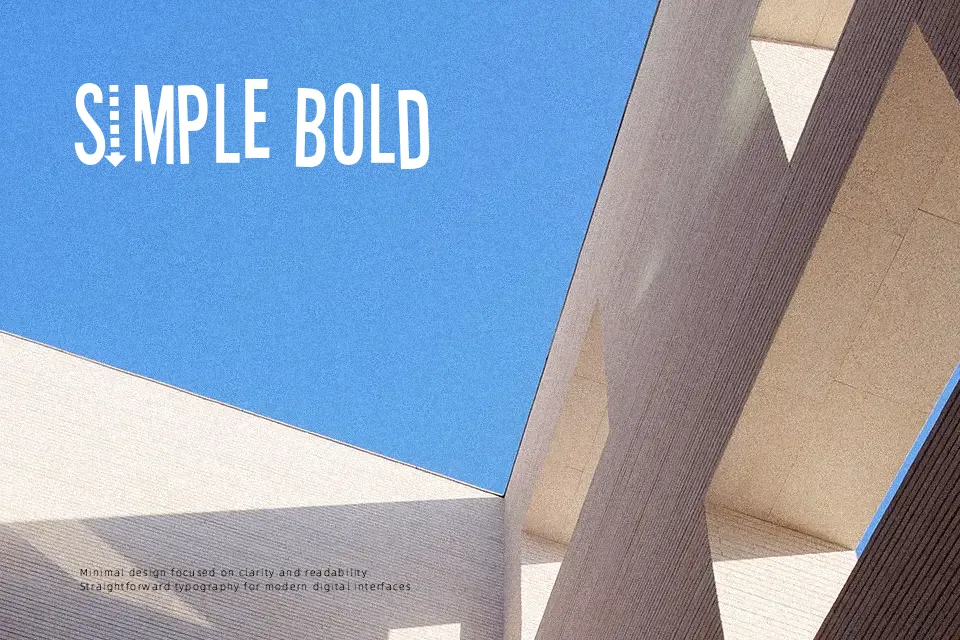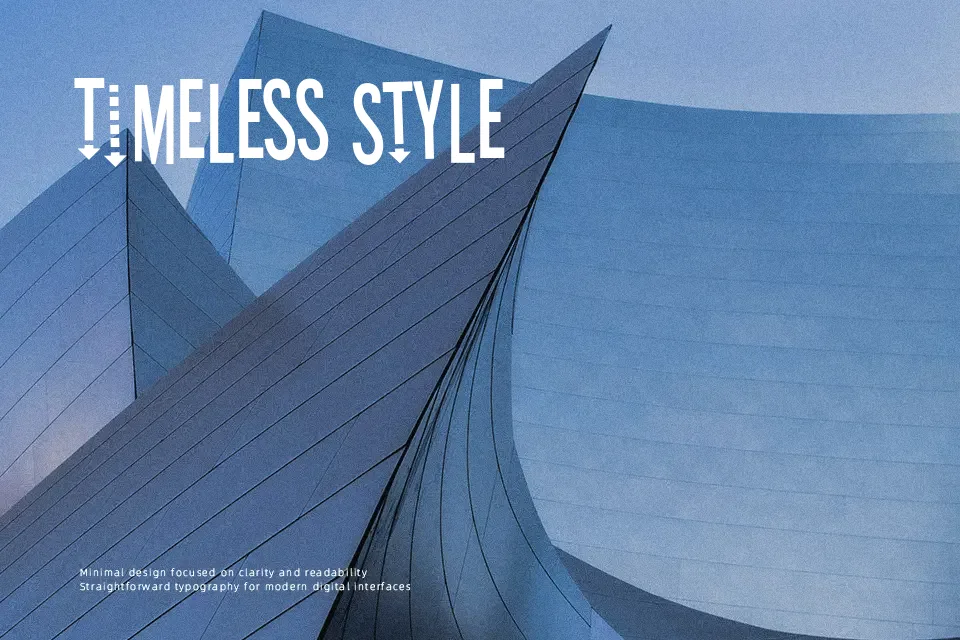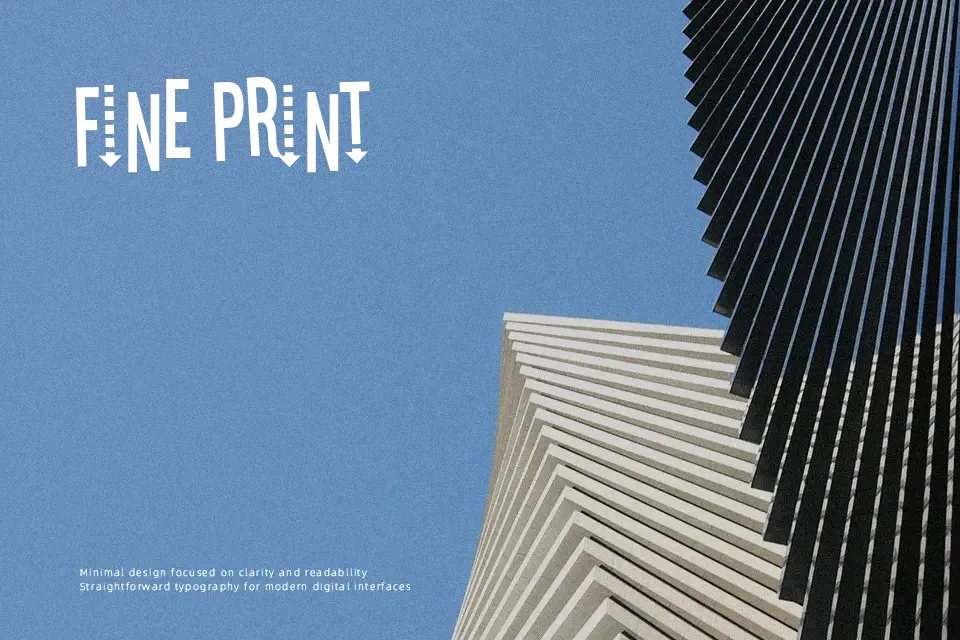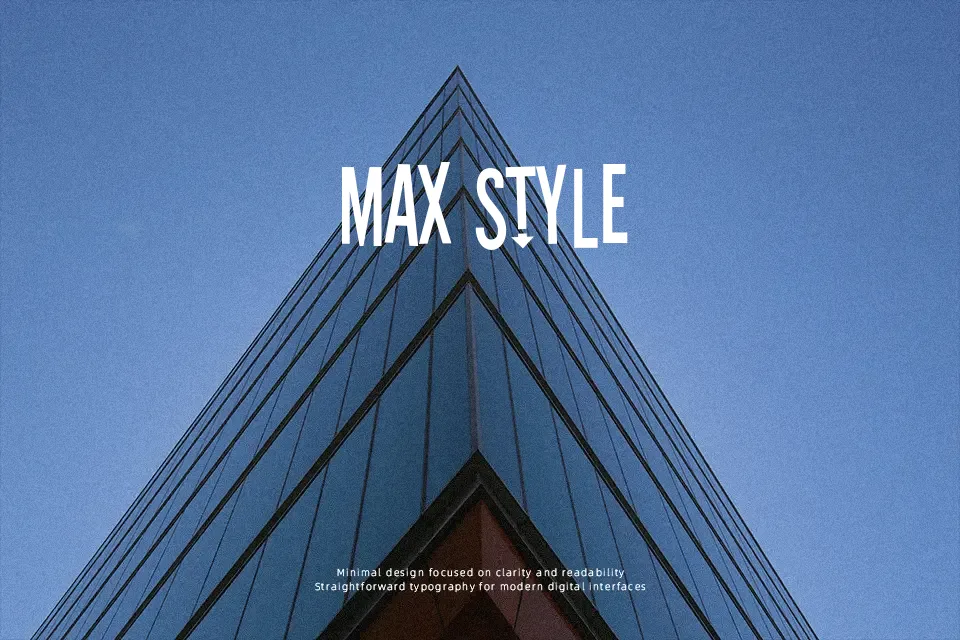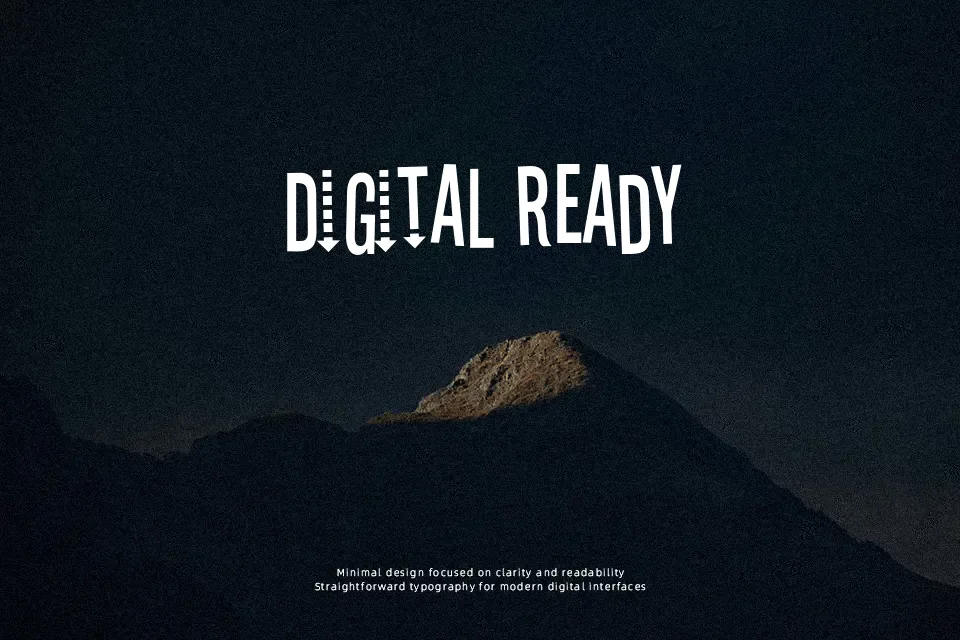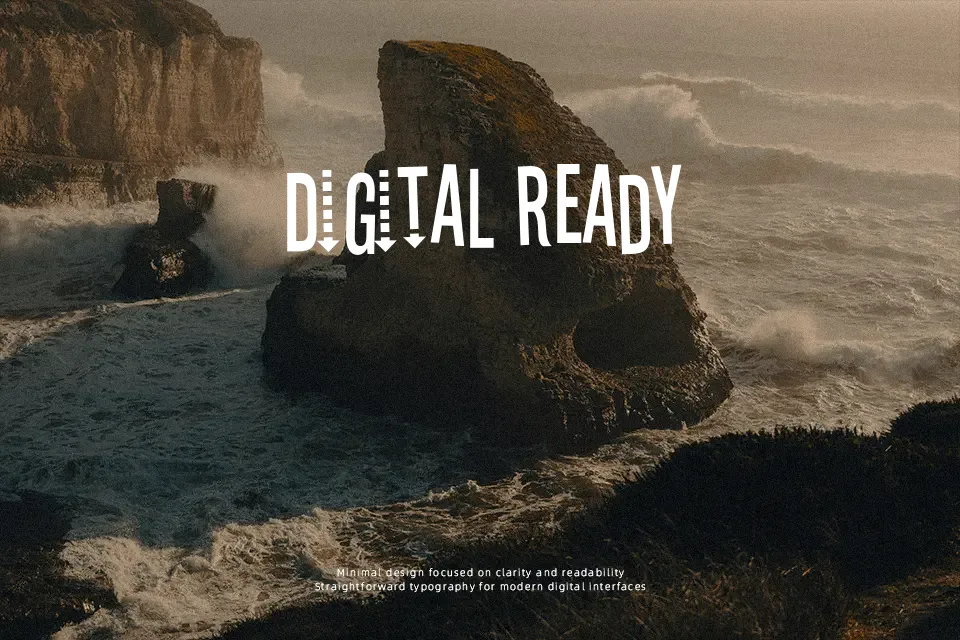
Stereofidelic Font
Structured around eccentric geometry, Stereofidelic Font showcases heavily stylized glyphs characterized by compact proportions, sudden directional shifts, and playful arrow accents. The letterforms display solid, low-contrast strokes with varied baseline alignments that create a lively, animated texture across short headlines. Because the characters interlock closely, the typeface maintains exceptional visual presence when applied to bold poster titles, beverage labels, and retro apparel. However, the dense contours and deliberate structural distortions significantly reduce legibility in extended text settings. The exaggerated decorative terminals become distracting at smaller point sizes, making the design unsuitable for editorial body copy or structured UI interfaces.
Best For: retro album packaging, music festival posters, apparel graphics, display headlines
Not Ideal For: continuous paragraph text, mobile app body copy, legal documents, dense editorial layouts
Perfect for branding, headline, and music, with a artistic and condensed style.